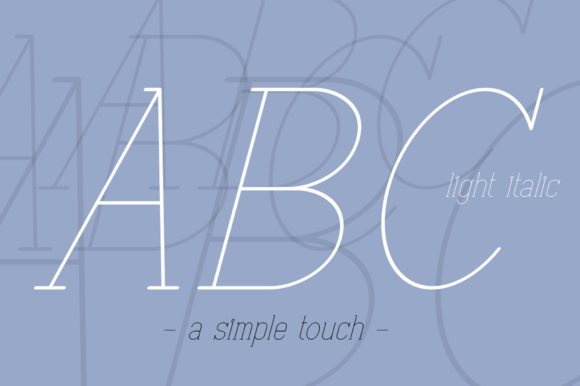
The Quest for the Perfect Font: Discovering ABC Light Italic
I’ll never forget the time I was working on a project for a client who wanted a clean and elegant look for their business cards. I had spent hours browsing through font libraries, but nothing seemed to fit the bill. That was until I stumbled upon ABC Light Italic. It was like a breath of fresh air – simple, yet sophisticated, and instantly elevated the entire design. In this article, I’ll share my experience with this beautiful font, its features, and how to make the most of it in your designs.
ABC Light Italic: A Personal Review
- ✨ Clean and simple serif design that works well for body text
- 💡 Perfect for creating a professional and elegant look
- 🎨 Versatile and can be used for a wide range of design projects
While ABC Light Italic is an excellent font, there are a few things to keep in mind:
- 🤔 Limited availability of stylistic alternates, which may limit creative options
- ⚠️ May not be the best choice for display text or headings, as it can appear too light
The Story Behind ABC Light Italic
ABC Light Italic was designed by a team of typographers who wanted to create a clean and elegant font that would work well for a wide range of design projects. The font was inspired by classic serif fonts, but with a modern twist. The designers aimed to create a font that was both highly legible and visually appealing.
Q: What is the best use for ABC Light Italic?
A: ABC Light Italic is ideal for body text, such as in books, articles, and business cards. It’s also suitable for web design and other digital applications.
Q: Can I use ABC Light Italic for display text?
A: While ABC Light Italic can be used for display text, it may not be the best choice. The font is designed for body text, and may appear too light for headings or titles.